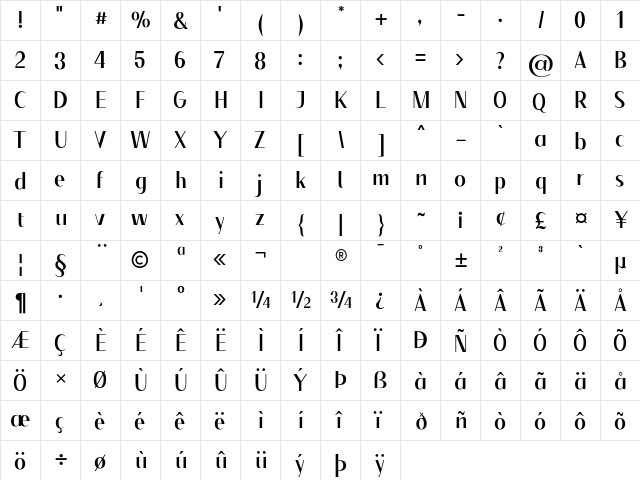
Floane Regular
| Foundry | Daler Mukhiddinov |
| Designer | Daler Mukhiddinov |
Design Context for Floane Typeface
Floane offers clean, dependable letterforms without strong stylistic allegiance, making it a practical choice for designers who need flexibility.